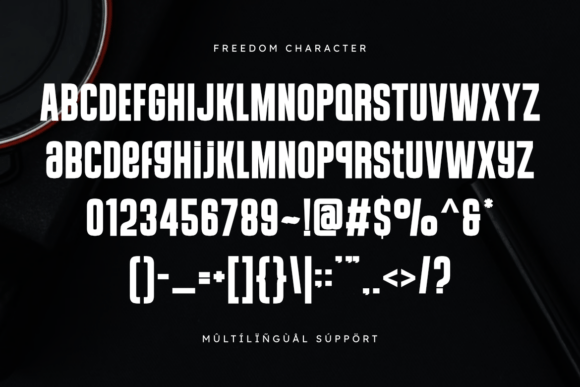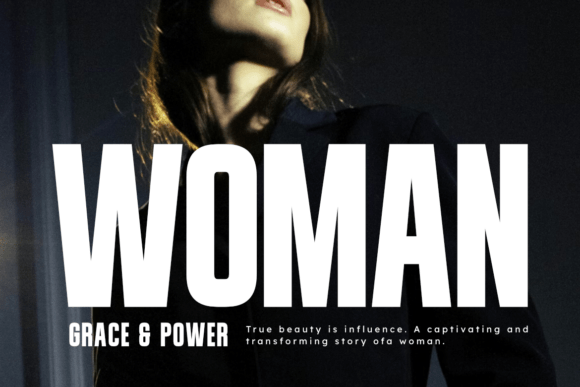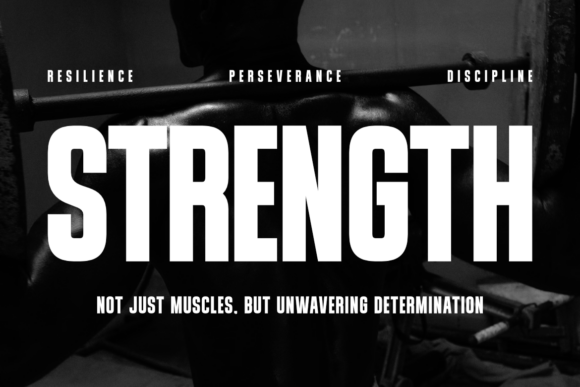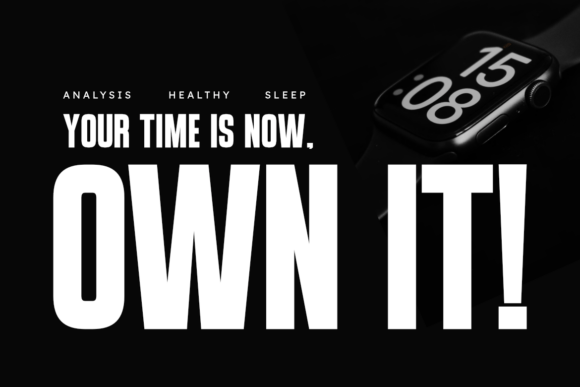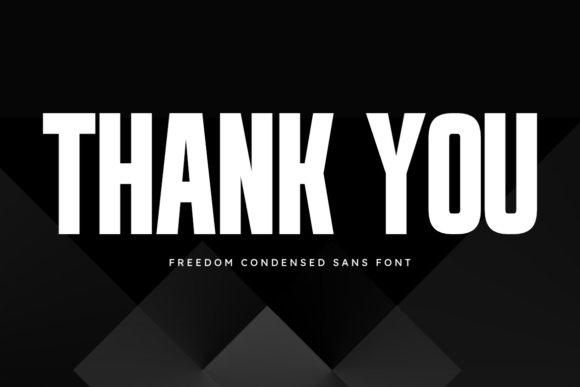
Unleash the Power of Freedom Font: Elevate Your Designs with Confidence and Dynamism
Are you tired of using the same old fonts that fail to make a lasting impression? Look no further than Freedom Font, a bold, creative condensed sans font designed to capture the essence of unrestricted energy and powerful statements. This contemporary and versatile display typeface is perfect for designers seeking a strong, clean, and memorable font that embodies confidence and dynamism.
The Design Behind Freedom Font
Freedom Font boasts a solid, thick construction and a slightly aggressive stance, making it highly effective for impactful headlines, music and urban culture branding, sports design, and large format posters. Its condensed sans design allows for maximum visual punch, making it perfect for designers looking to make a statement. The font’s bold and confident appearance is sure to grab attention and leave a lasting impression.
Key Features of Freedom Font
• Bold and Confident: Freedom Font’s solid, thick construction and slightly aggressive stance make it perfect for creating impactful headlines and statements.
• Contemporary and Versatile: This display typeface is suitable for a wide range of design applications, from music and urban culture branding to sports design and large format posters.
• Clean and Memorable: Freedom Font’s clean design and bold appearance make it easy to read and remember, ensuring that your message stays with your audience.
• Dynamic and Energetic: This font’s condensed sans design and aggressive stance give it a dynamic and energetic feel, perfect for capturing the essence of unrestricted energy.
Freedom Font is a perfect addition to any designer’s toolkit, providing a unique and powerful font that can elevate any design project. Whether you’re working on a branding project, creating a poster, or designing a website, this font is sure to make a lasting impression. Crafters and DIY enthusiasts will also love Freedom Font, as it can add a professional touch to any handmade project.
Applications of Freedom Font
Freedom Font’s versatility and bold appearance make it suitable for a wide range of design applications, including:
• Music and Urban Culture Branding: Use Freedom Font to create bold and eye-catching logos, posters, and merchandise that capture the essence of the music and urban culture scene.
• Sports Design: This font’s dynamic and energetic feel makes it perfect for sports branding, including team logos, jerseys, and promotional materials.
• Large Format Posters: Freedom Font’s bold and confident appearance makes it ideal for creating eye-catching posters that grab attention and leave a lasting impression.
• Headlines and Titles: Use Freedom Font to create bold and impactful headlines and titles that add a touch of confidence and dynamism to any design project.
Tips for Using Freedom Font
To get the most out of Freedom Font, here are a few tips to keep in mind:
• Use it boldly: Freedom Font is designed to make a statement, so don’t be afraid to use it boldly and prominently in your designs.
• Experiment with colors: This font’s bold appearance makes it perfect for experimenting with different colors and gradients.
• Pair it with contrasting fonts: Freedom Font’s bold appearance makes it perfect for pairing with contrasting fonts to create visual interest and hierarchy.
Font Name Freedom Font
Author Funtype Co.
Freedom Font is a powerful and versatile display typeface that is perfect for designers and crafters looking to add a touch of confidence and dynamism to their designs. Its bold and confident appearance, combined with its clean and memorable design, make it a must-have font for any design project. Whether you’re working on a branding project, creating a poster, or designing a website, Freedom Font is sure to make a lasting impression.